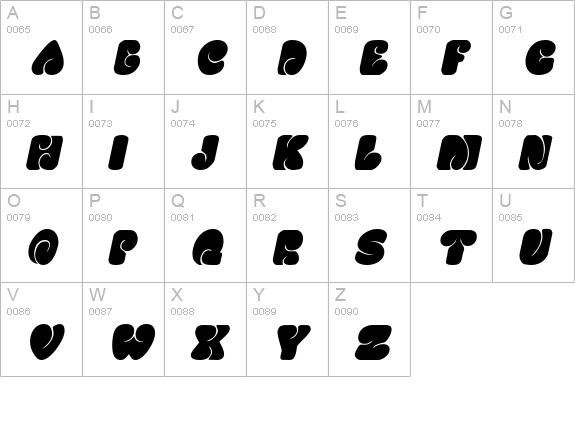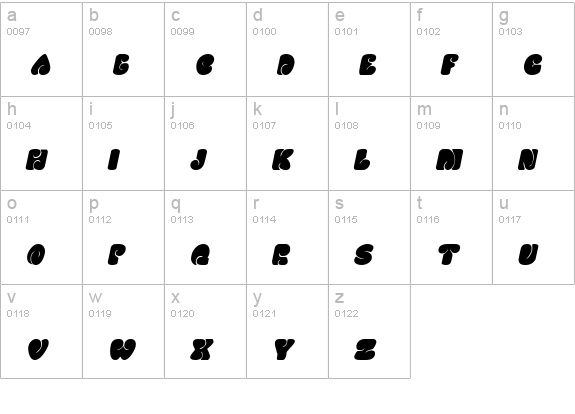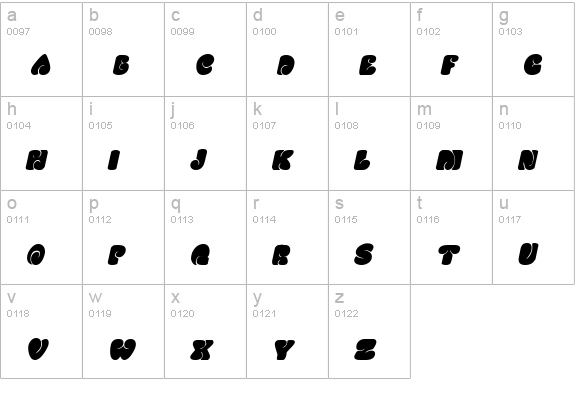
SixtiesVibe Oblique Font Details
SixtiesVibe Oblique is a distinctive, italic variant in the SixtiesVibe typeface family \xE2\x80\x94 well suited to design and typography projects.
SixtiesVibe Oblique font is a dynamic and captivating typeface that captures the essence of the iconic 1960s era. With its unique slanted design and retro-inspired curves, this font exudes a sense of nostalgia and a groovy, free-spirited vibe. The SixtiesVibe Oblique font is a perfect choice for projects that aim to recreate the pulsating energy and rebellious spirit of the sixties. Whether you're designing posters, album covers, or branding materials, this font will add a touch of retro charm and a sense of adventure to your work. This font's bold and slanted letterforms create a visual impact, making it ideal for headlines and display purposes. Its smooth curves and playful angles give your designs a sense of movement and excitement, drawing the viewer's attention and creating a captivating visual experience. The SixtiesVibe Oblique font is freely available to download at FontsMarket.com, making it easily accessible to designers and creatives who want to add a touch of retro flair to their projects. With its extensive character set and versatile design, this font allows for endless possibilities and creative exploration. So, if you're looking to infuse your designs with a sense of the sixties' vibrant spirit and want a font that is both bold and captivating, look no further than SixtiesVibe Oblique font. Download it for free at FontsMarket.com and let the groovy vibes of the sixties take your designs to new heights.